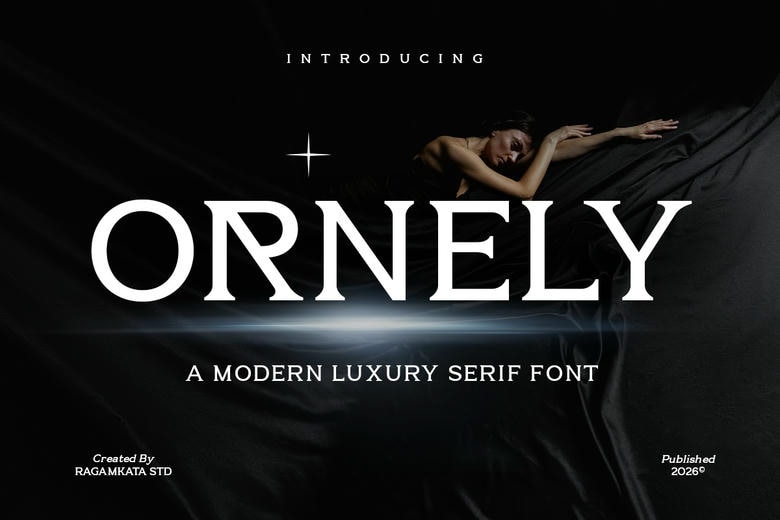
Ornely Font
Ornely is a modern luxury serif font is created to convey the meaning of elegance, sophistication, and classic beauty. Ideally, in luxury branding, fashion magazine layouts, high end packaging, magazine layouts, logo design, wedding designs, and expensive marketing designs. Ornely is very powerful and elegant to the sight, yet it creates a captivating visual impression that is easy to look at and at the same time has a very high readability in digital and print usage.
Ornely makes any letter sophisticated and elegant (be it fashion labels, beauty brands, luxury product packaging or editorial typography). The font enables designers to design sophisticated and aesthetically appealing designs with a classic luxury look.
Ornely Serif Font